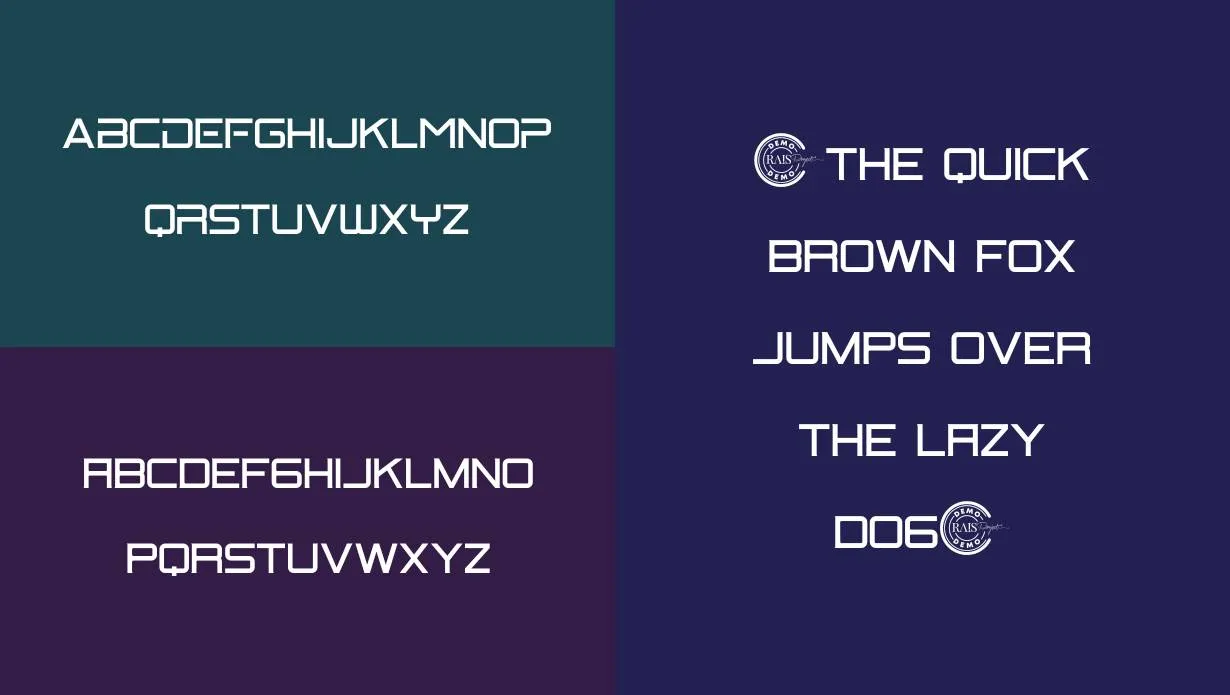
Bitrate Font is a bold and futuristic typeface often chosen for projects related to technology, sci-fi, and modern design.
Bitrate Font Family
Name | Bitrate Font |
Designer | Rais Project |
Style | Sans-Serif |